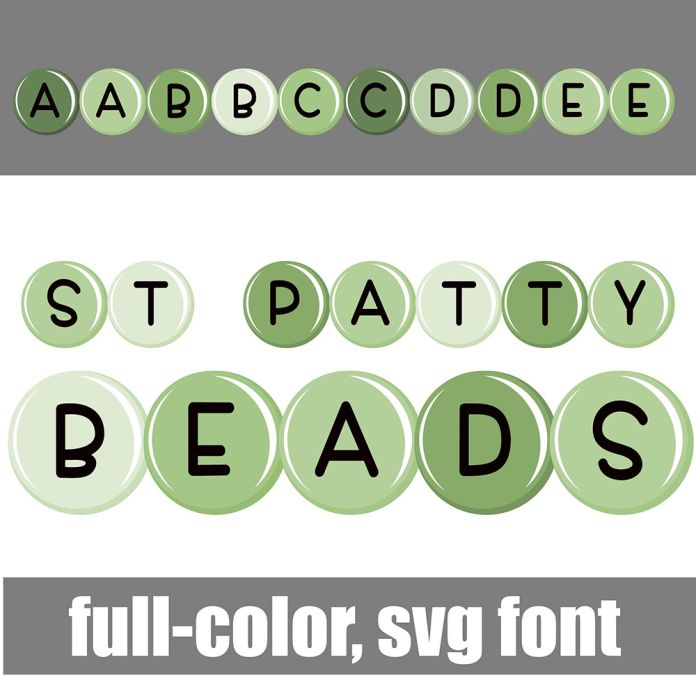
This full-color font features green round alphabet beads. There is an alt case with an additional color of each letter. This font works best for titles, displays, posters and more. Please note color fonts will show as black in non compatible programs. This font type is compatible with Silhouette Studio.